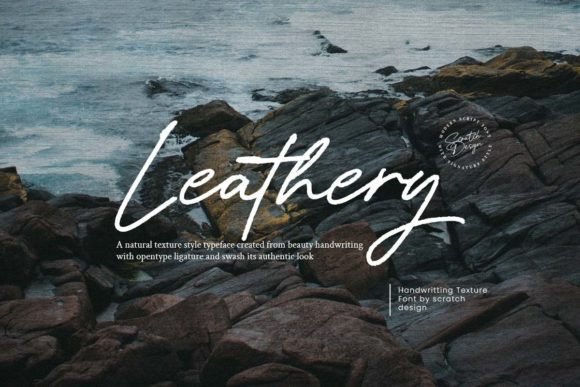
Welcome to the world of Leathery, a modern script font that captivates with its signature-style appearance and distinctive ballpoint texture. This masterpiece, brought to you by the talented Scratch Design, is the ultimate choice for those seeking to craft designs that exude the beauty and authenticity of natural handwriting.
Unleash your creativity and let Leathery guide you in crafting captivating designs for an array of projects. From the elegance of name card designs to the charm of invitation designs, Leathery effortlessly adds a personal touch that resonates with your audience. Create wedding designs that radiate romance and sophistication, or craft posters that command attention with their distinctive flair.
Elevate your packaging designs with a touch of handwritten grace, or let Leathery adorn the cover of your book, capturing the essence of your story in every letter. Its versatility extends to social media posts, where Leathery adds a personal touch that resonates with your followers. Share your thoughts, quotes, and musings with a font that reflects your authentic voice.
With Leathery, the possibilities are endless. Its script-style design evokes a sense of intimacy and authenticity, perfectly complementing designs that seek to convey heartfelt messages and genuine connections. Whether you're a designer, an artist, or simply someone with a passion for creating, Leathery is the font that transforms your words into works of art.
Embrace the beauty of handwritten elegance with Leathery, the modern script font that captures the essence of authenticity and creativity. Let your designs come alive with a font that speaks to the heart and ignites the imagination. Download Leathery today and embark on a journey of artistic expression like never before.